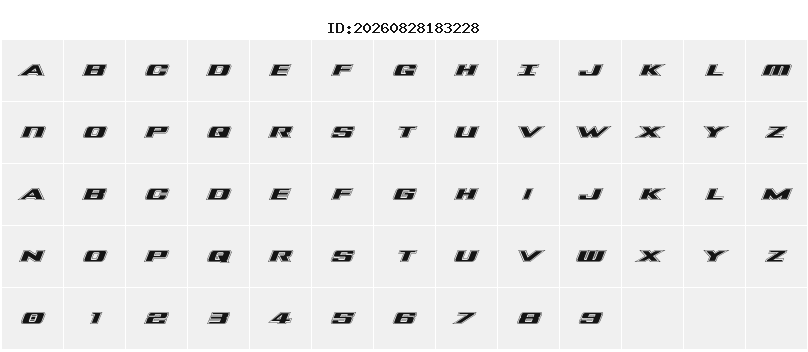
About Tigershark Pro Italic.ttf
Tigershark Pro Italic.ttf is a modern, elegant sans-serif font designed for ultimate readability and visual harmony. Perfect for branding, headlines, web design, and print materials.